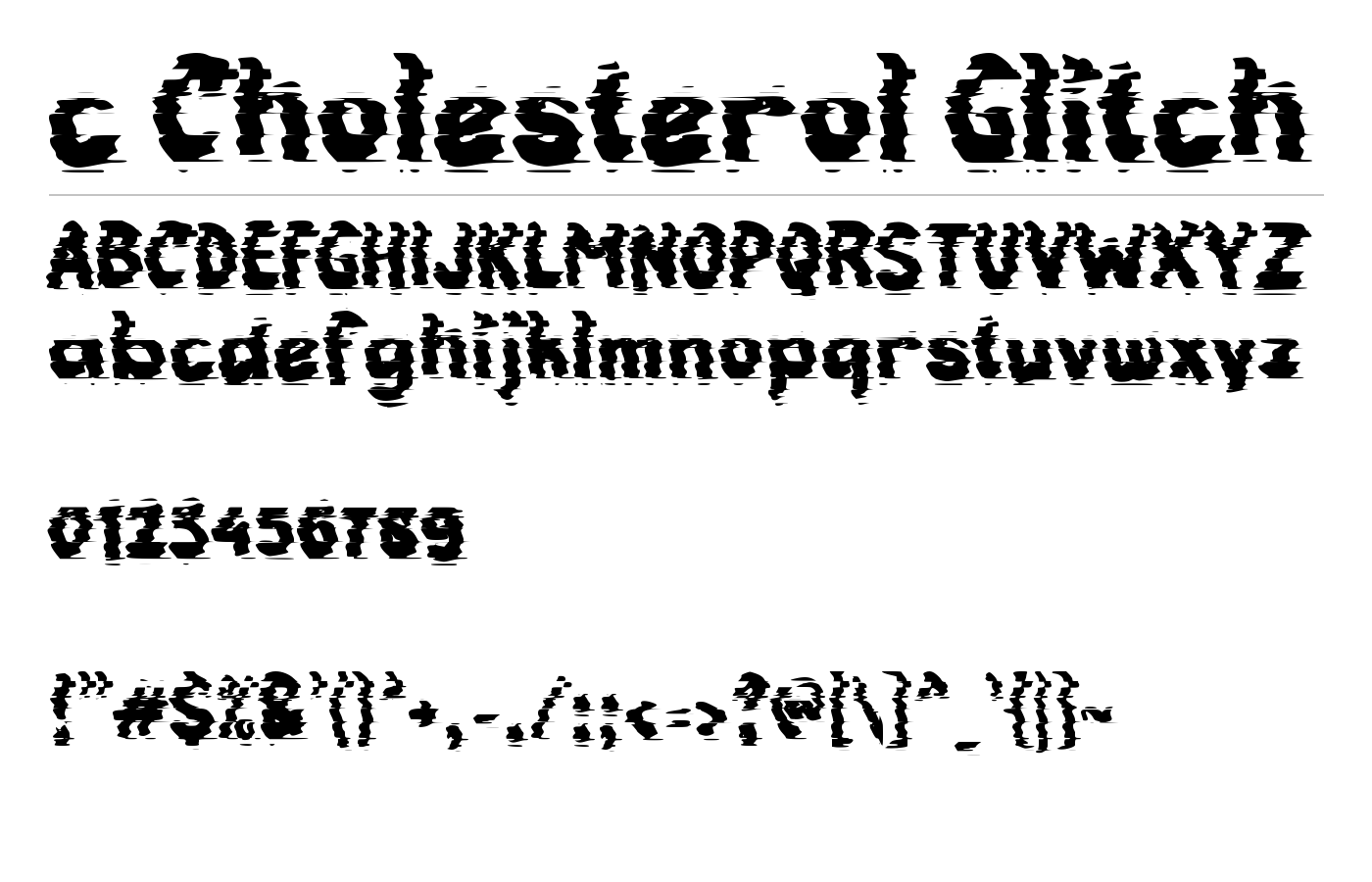
c Cholesterol Glitch is a bold, condensed sans serif font that captures a digital, distorted aesthetic with its glitchy, fragmented strokes and rough edges. The font features a strong, heavy weight with high contrast created by irregular breaks in the letterforms, giving it an edgy and tech-inspired personality perfect for modern, experimental designs. It works best for striking headlines, posters, or branding that aims to convey a sense of disruption, technology, or cyberpunk style.
c Cholesterol Glitch Font
About c Cholesterol Glitch Font